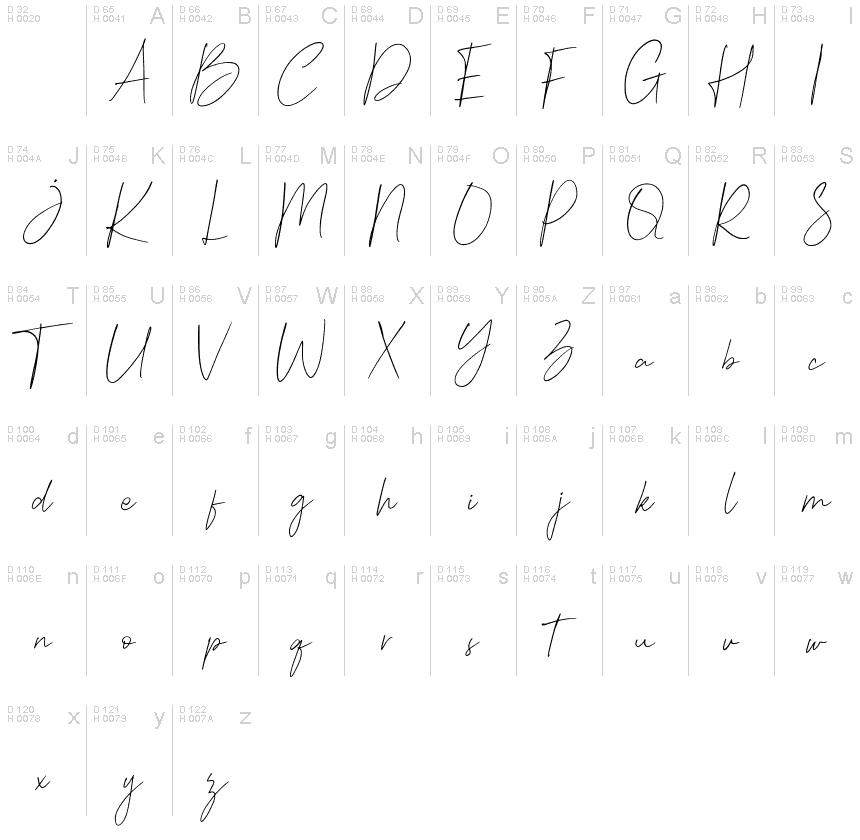
Heleny Free Regular
Crafted by the talented designers at Craft Supply Co., Heleny is a stunning ultra-light handwritten font that adds a touch of elegance and sophistication to any project. Its semi-condensed width makes it perfect for various projects such as wedding invitations, branding, social media graphics, and more. The smooth lines and delicate curves of this typeface are sure to impress your audience and give your designs a unique personality. Express your creativity with Heleny and watch as it takes your design game to the next level!